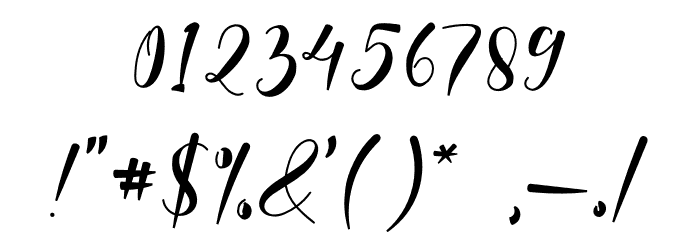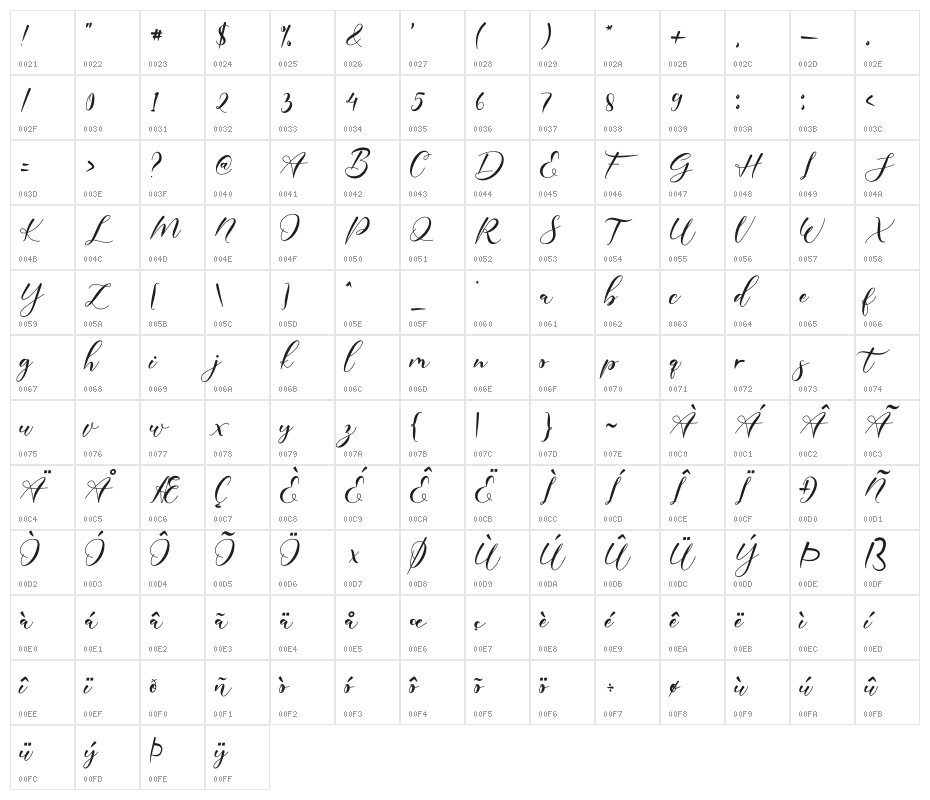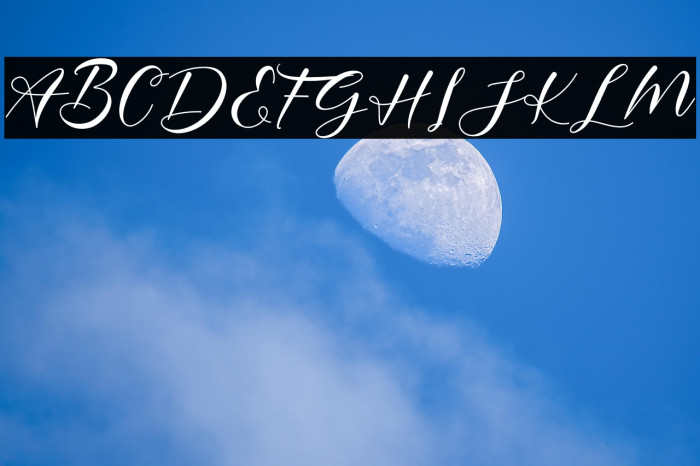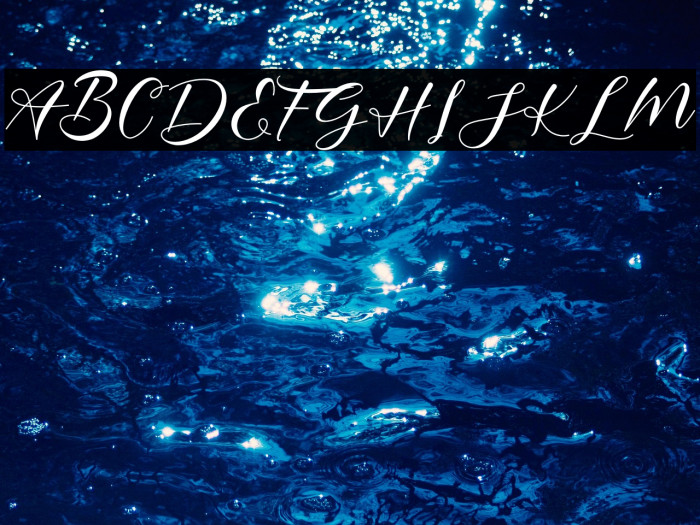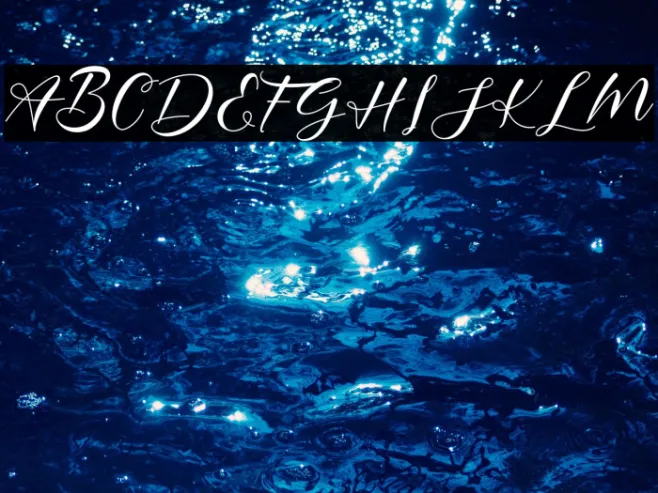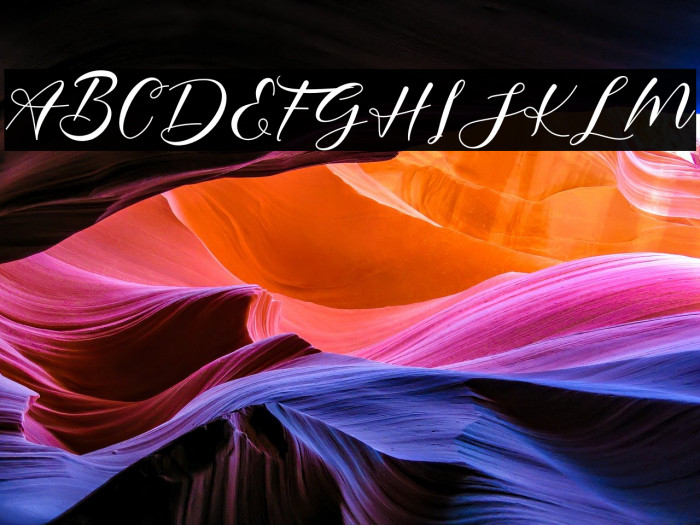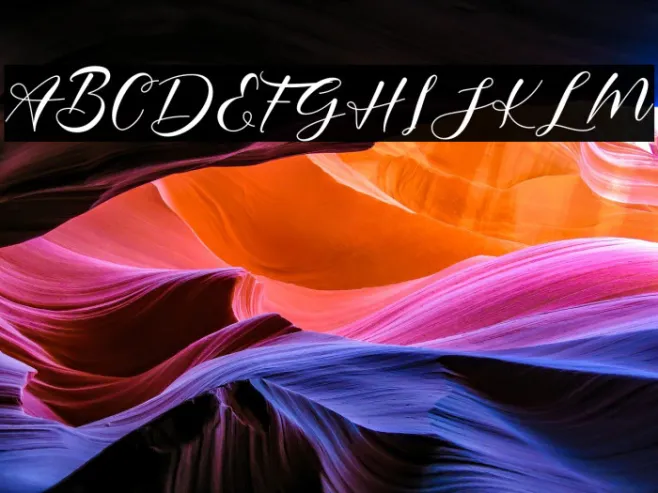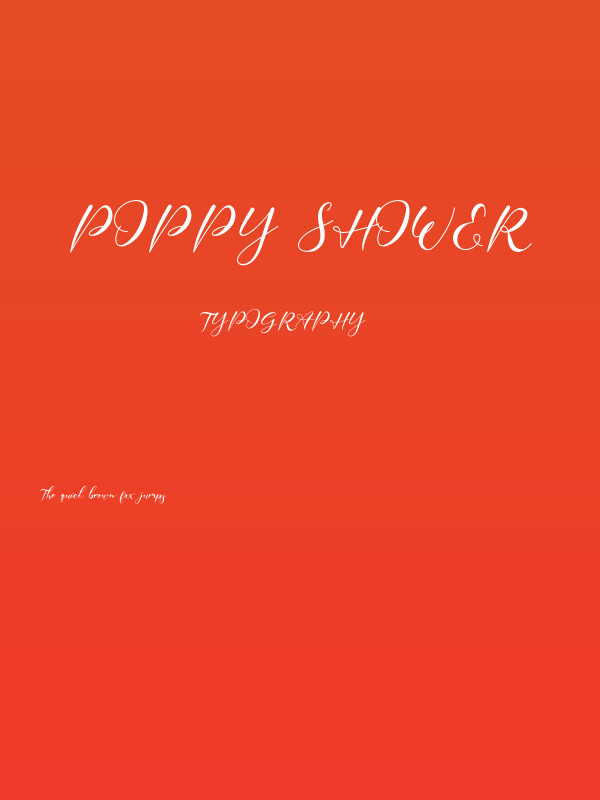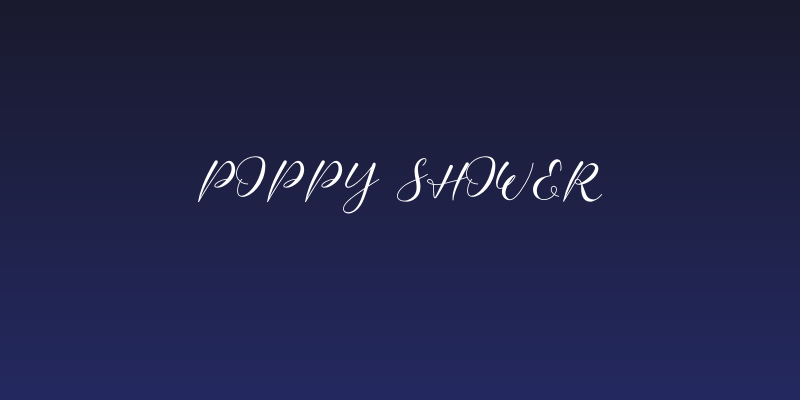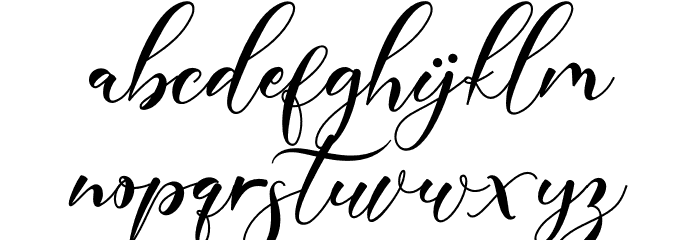
Poppy Shower Font
Poppy Shower Description
This font features an elegant and flowing script style, characterized by its graceful curves and fluid strokes. The uppercase letters are ornate, with sweeping lines and a sense of movement, while the lowercase letters maintain a consistent flow, enhancing readability. The numerals are stylishly crafted, complementing the overall aesthetic. Special characters are integrated seamlessly, adding to the font's versatility. The design is reminiscent of traditional calligraphy, yet it incorporates a modern twist, making it suitable for contemporary applications. Its artistic flair and attention to detail make it ideal for projects that require a touch of sophistication and elegance.